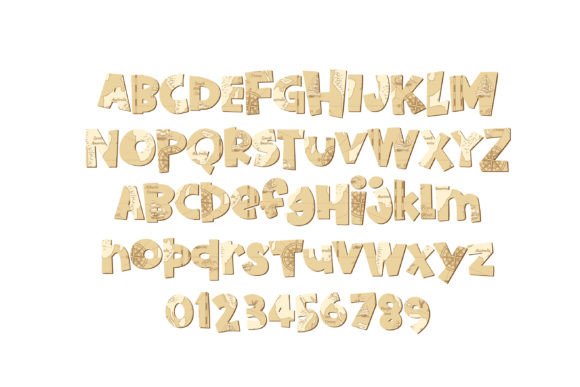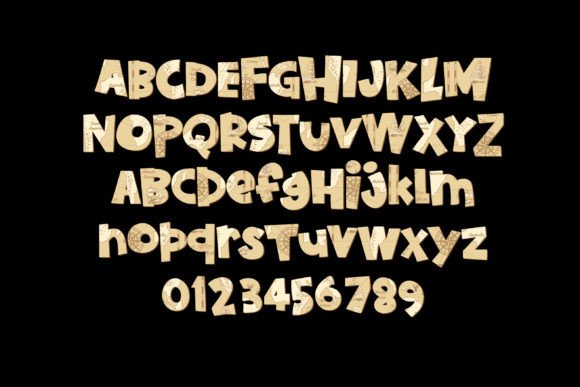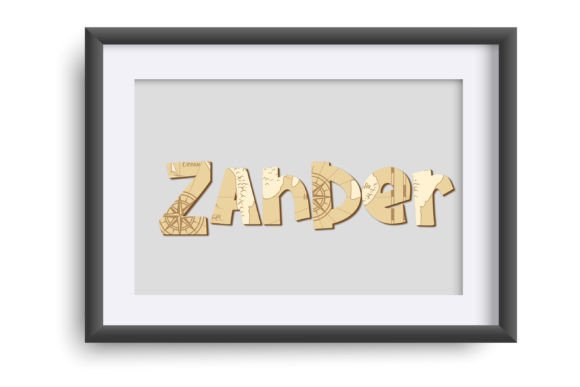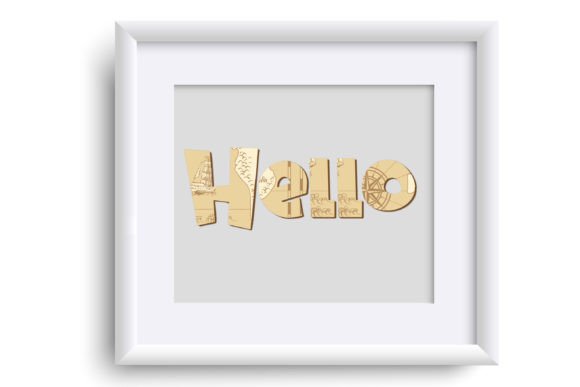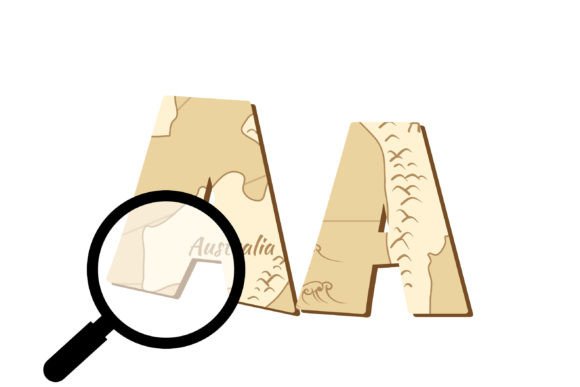
Introducing Geography Font: A Revolutionary Full-Color Font for Designers and Crafters
Are you tired of using the same old fonts for your design projects? Look no further! Geography Font is a game-changing, full-color font that features sans serif lettering with maps, perfect for designers and crafters who want to add a unique touch to their work. In this article, we’ll explore the features and benefits of Geography Font, as well as how to install and use it in various programs.
What is Geography Font?
Geography Font is an OpenType full-color (SVG) font that combines sans serif lettering with maps, creating a visually striking and recognizable font. This font is perfect for designers and crafters who want to add a touch of personality to their work, whether it’s for a branding project, a crafting project, or a digital design.
Key Features of Geography Font
- Full-color font: Unlike traditional fonts, Geography Font features full-color lettering, making it perfect for designs that require a pop of color.
- OpenType full-color (SVG) font: This font uses SVG technology, which allows for scalable and editable vector graphics.
Tips for Using Geography Font
To get the most out of Geography Font, here are some tips to keep in mind:
- Use it for headings and titles: Geography Font is perfect for headings and titles, where you want to make a bold statement.
- Experiment with different colors: While Geography Font comes in a default color scheme, you can experiment with different colors to match your brand or design.
- Pair it with other fonts: Geography Font can be paired with other fonts to create a unique and visually appealing design.
Geography Font offers several benefits for designers and crafters, including:
- Unique designs: With Geography Font, you can create unique and eye-catching designs that stand out from the crowd.
- Time-saving: This font can save you time and effort, as you don’t need to create intricate designs from scratch.
- Scalability: As a vector font, Geography Font can be scaled up or down without losing quality, making it perfect for various design applications.
Geography Font is a revolutionary full-color font that offers designers and crafters a unique and exciting way to add personality to their work. With its easy installation, compatibility with popular programs, and versatility, this font is perfect for anyone looking to take their designs to the next level. Whether you’re a professional designer or a crafter, Geography Font is a must-have in your font library.